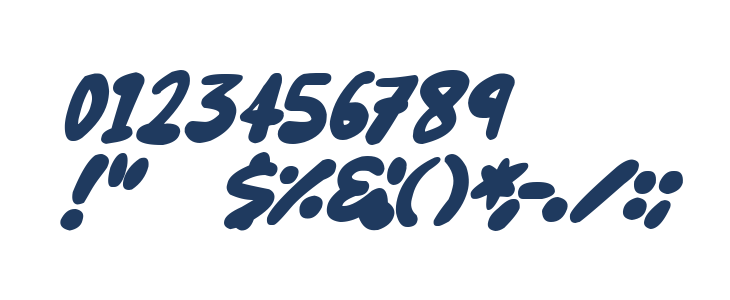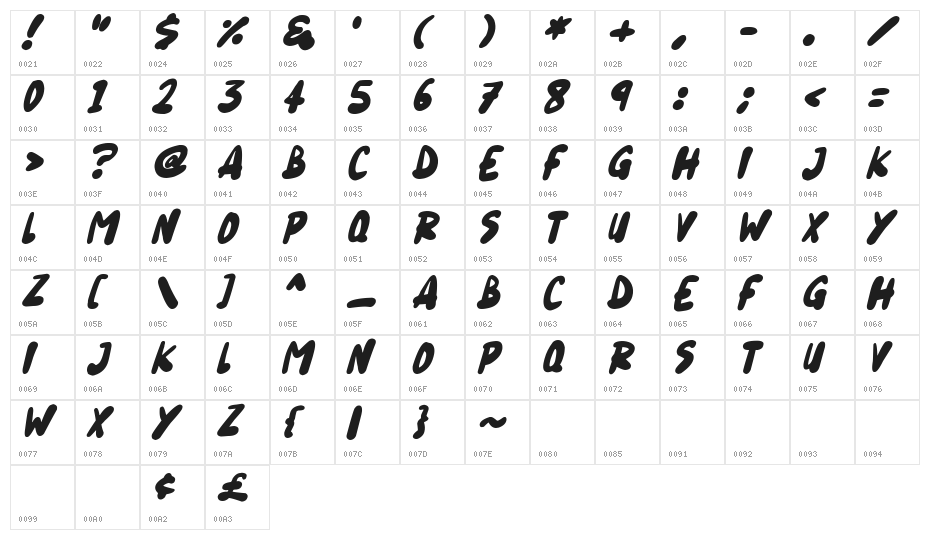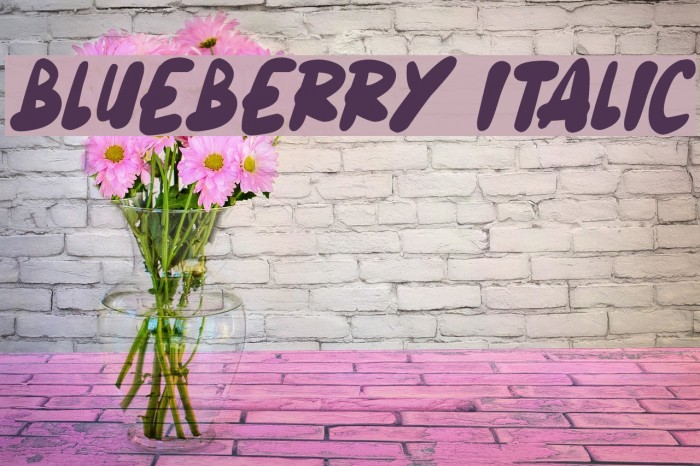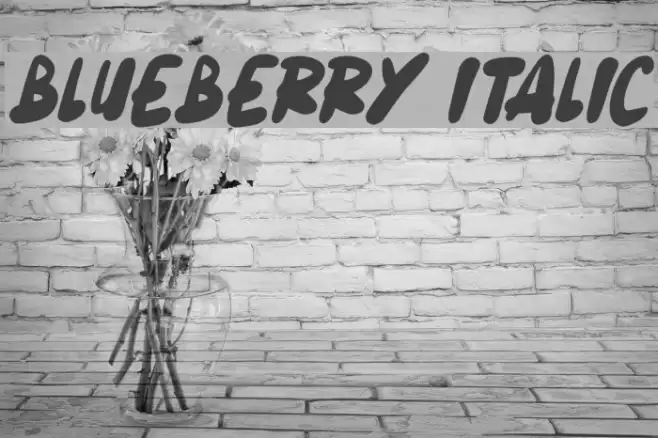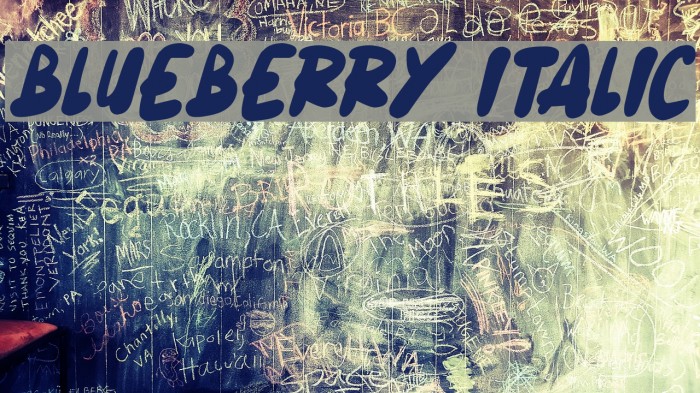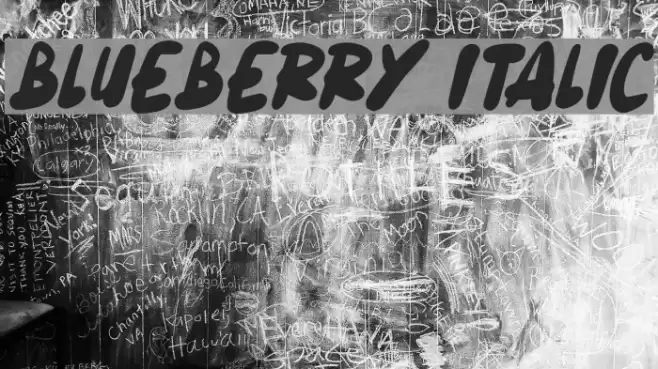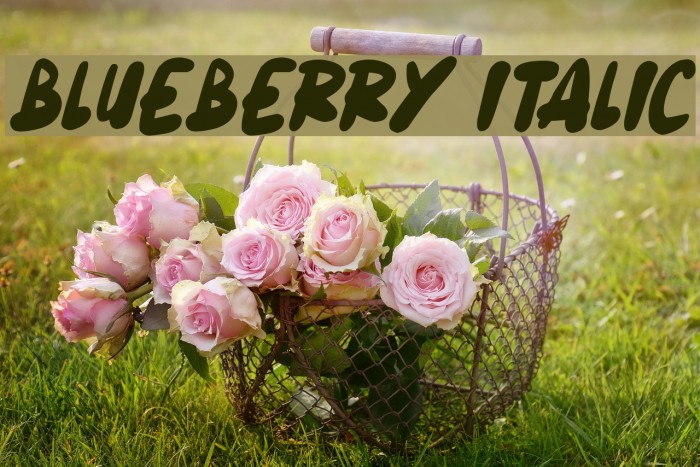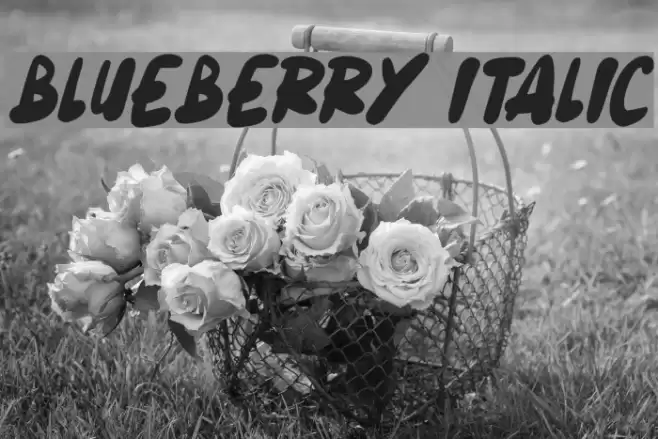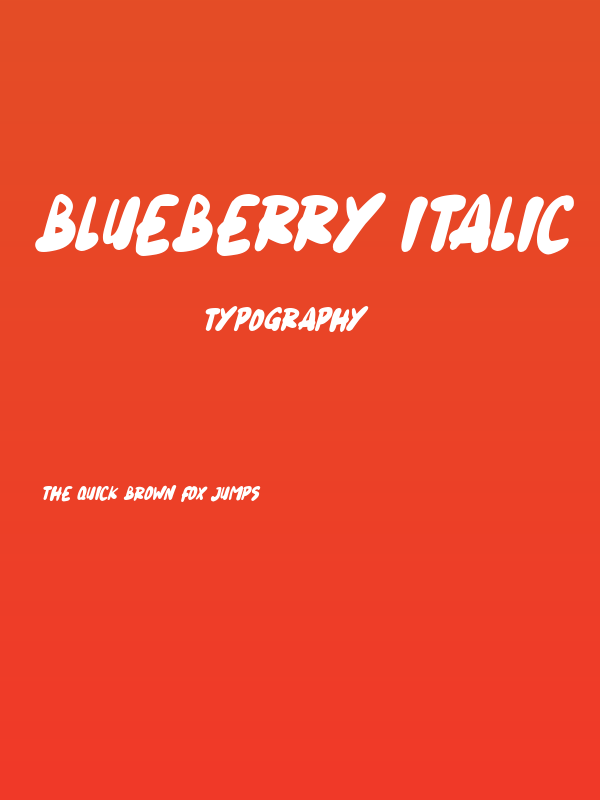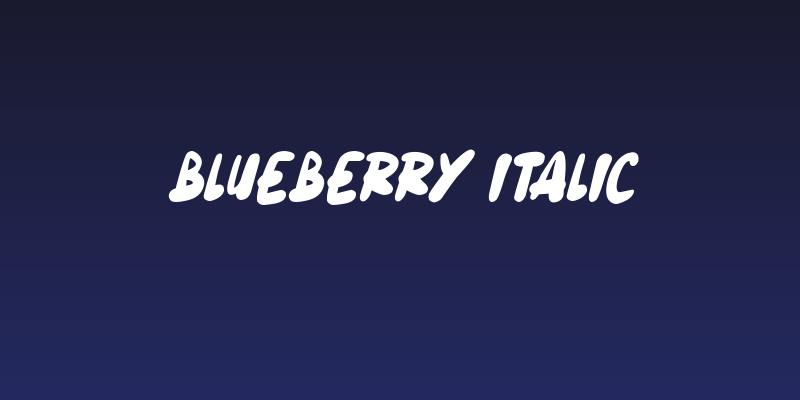
Blueberry Italic Font
Blueberry Italic Description
This font features a bold, playful style with a handwritten appearance. The letters are rounded and slightly slanted, giving it an energetic and informal look. The strokes are thick and consistent, providing a strong visual impact. The characters are closely spaced, enhancing the dynamic flow of the text. Its unique style makes it suitable for creative and casual applications, where a touch of personality is desired. The numbers and special characters maintain the same bold and rounded characteristics, ensuring uniformity across all text elements.